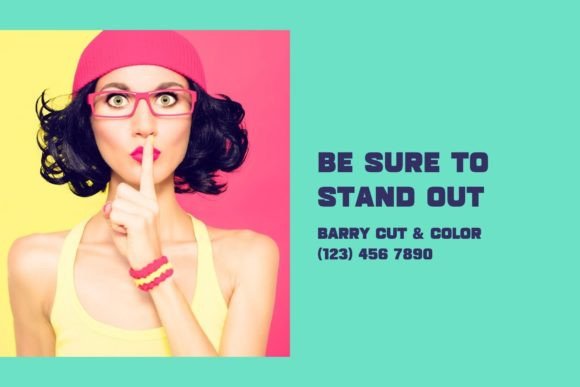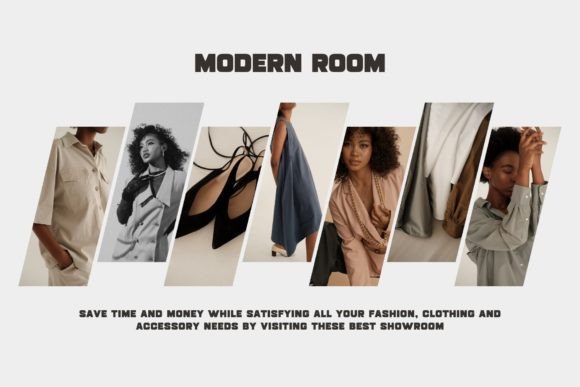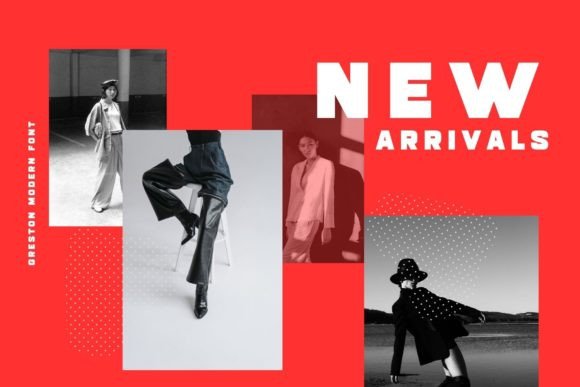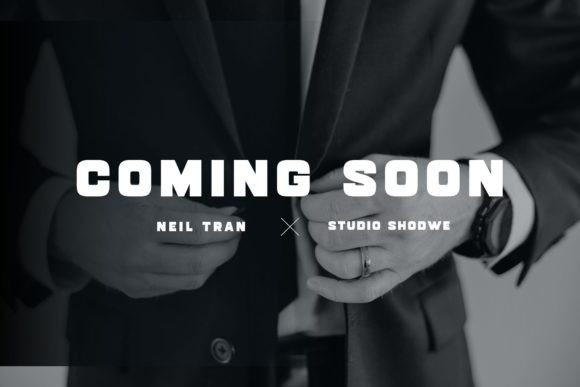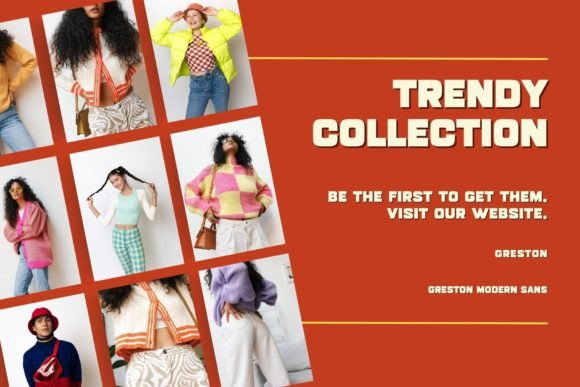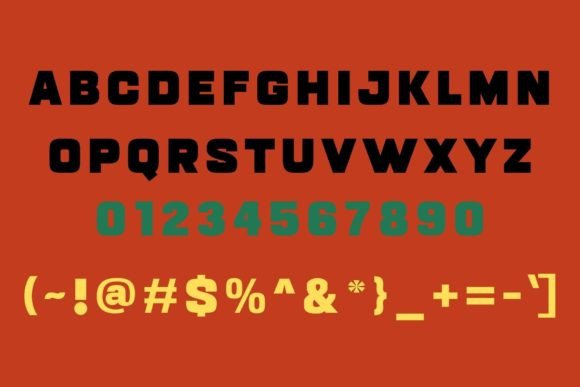
Introduction to Greston Font
Introducing “Greston,” a modern and bold sans-serif font that embodies sleek sophistication.
With clean lines and a strong presence, Greston is perfect for making a bold statement in your designs Ideal for branding, headlines, and any project where a contemporary and confident aesthetic is desired.
Key Features of Greston Font
Why Choose Greston Font?
Greston Font offers exceptional quality and versatility, making it a valuable addition to your design toolkit. Whether you’re creating for personal projects or commercial use, Greston Font delivers professional results.